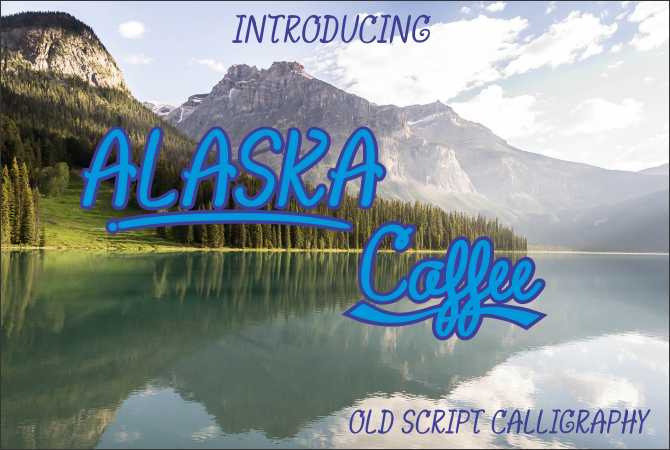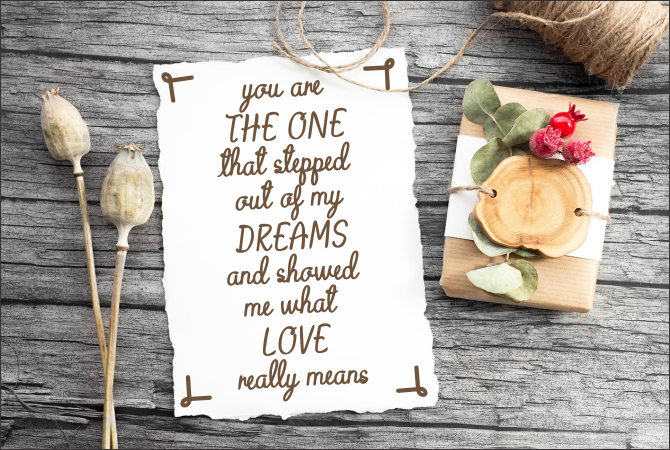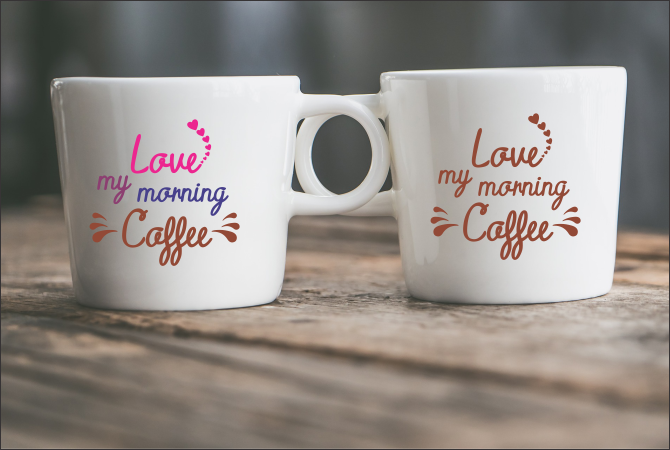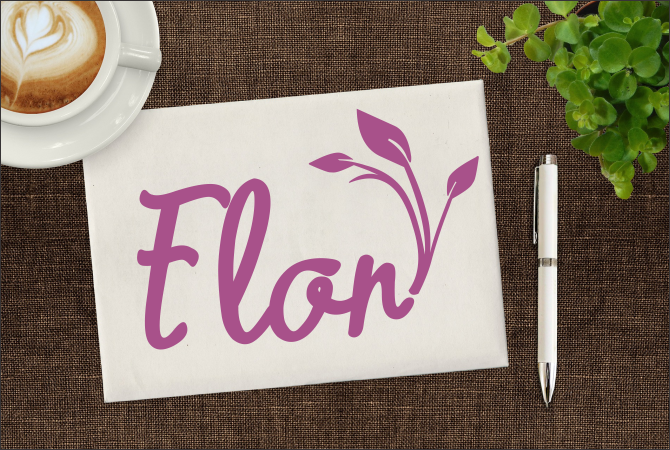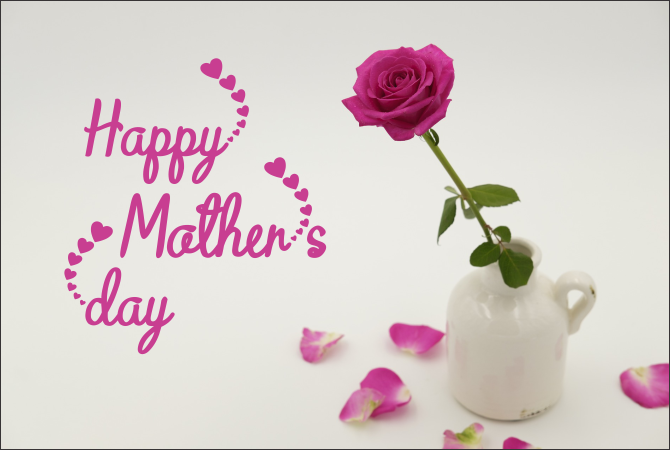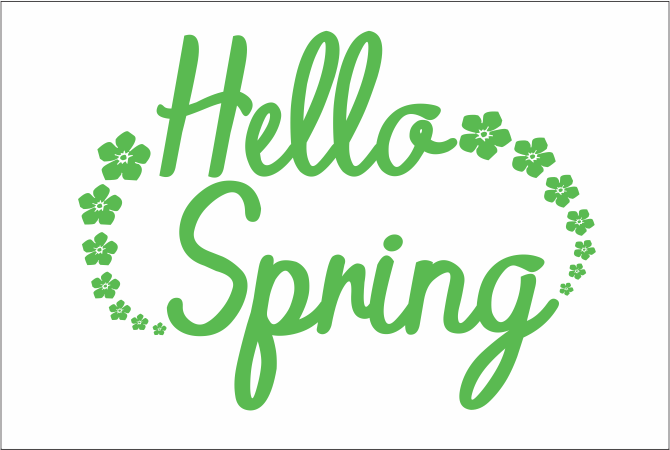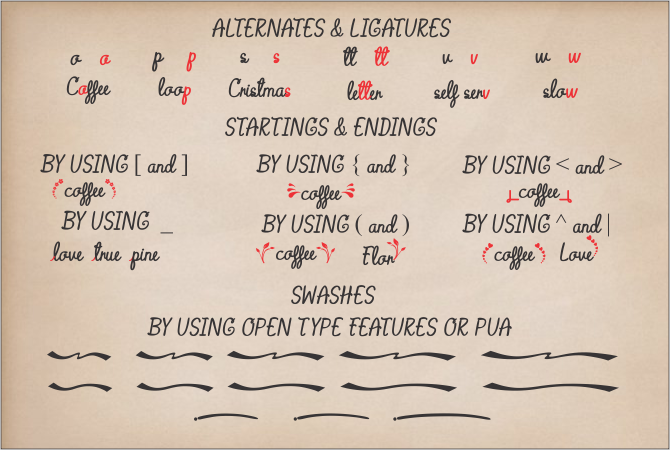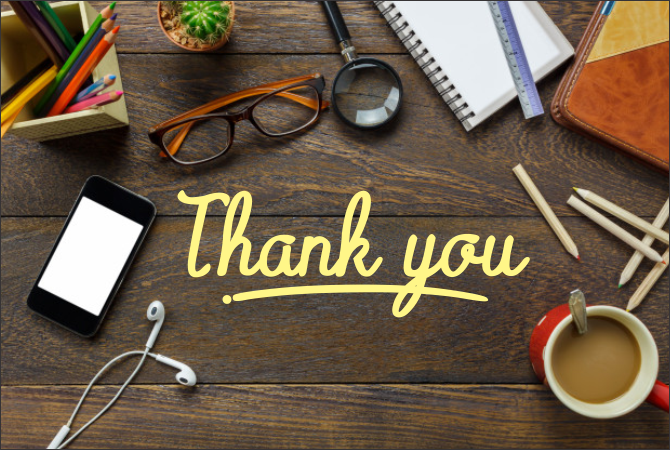
Alaska Coffee Font
About Alaska Coffee Font
Alaska Coffee is a stunning script font, perfect for giving your designs a homey and friendly feel. This font is characterized by the feel of natural handwriting with a nice weight and character set.